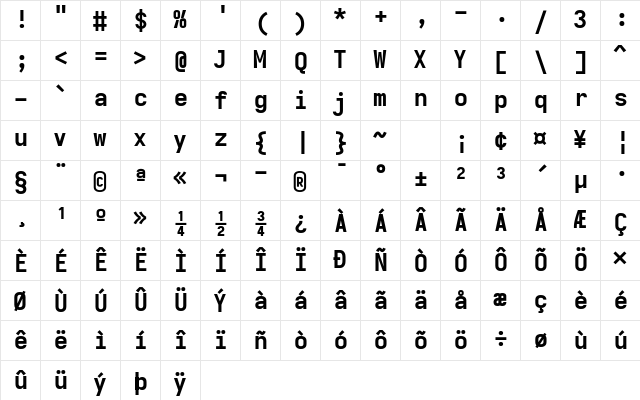
Complete Iosevka Extrabold Extended Regular glyph index. Displaying only characters natively supported by Iosevka Extrabold Extended Regular font.
Iosevka Extrabold Extended is a composed and adaptable typeface that performs quietly and consistently across a wide range of design contexts. Its bold stroke weight gives it real presence on the page.
Who designed the Iosevka Extrabold Extended Regular font?